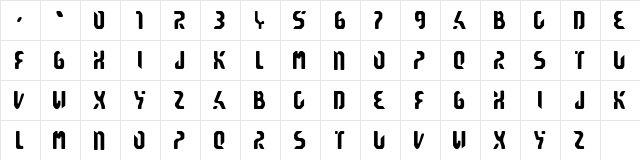
Reticulan Normal
Design Context for Reticulan Typeface
Reticulan is a composed and adaptable typeface that performs quietly and consistently across a wide range of design contexts.